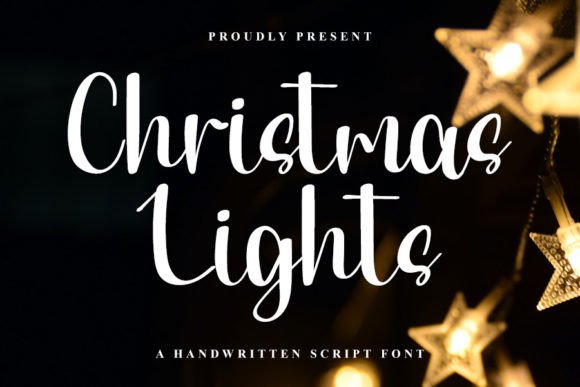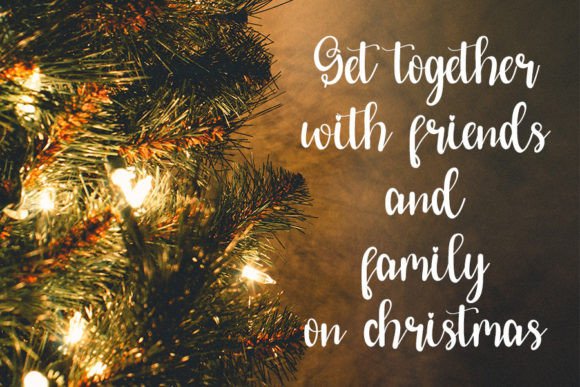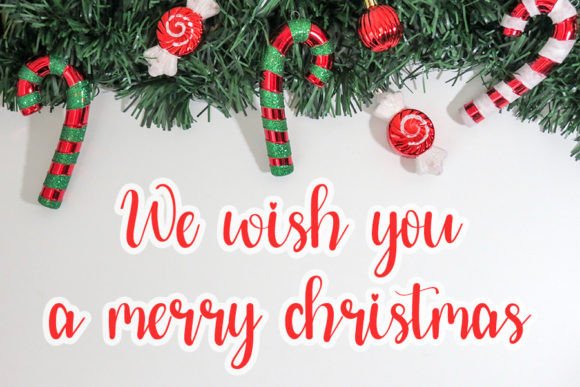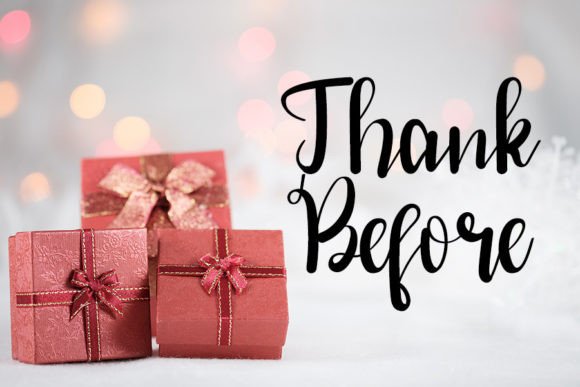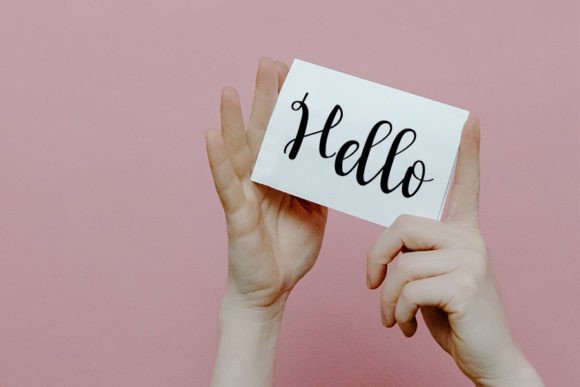
Christmas Lights Font
Celebrate the holiday season in style with the Christmas Lights Font download, a graceful and elegant handwritten script designed to capture the warmth and sparkle of Christmas. Inspired by timeless calligraphy and crafted with a contemporary flair, this font adds a festive and polished look to any project you create.
From cheerful cards and winter-themed invitations to seasonal branding and product packaging, Christmas Lights Font is the perfect way to bring a handcrafted holiday touch to your designs. Its flowing lines and balanced curves give it an approachable elegance, making it both legible and visually appealing.
Stylish, Balanced, and Beautiful
What sets Christmas Lights Font download apart is its classic influence paired with modern refinement. It’s neither overly ornate nor too casual—striking just the right balance for a wide range of uses. The letterforms are carefully varied, giving your text an organic, handwritten rhythm that looks beautiful whether used in large headlines or smaller captions.
Perfect for:
• Holiday cards & party invitations
• Christmas-themed social media graphics
• Personalized gift tags & packaging
• Winter wedding stationery
• Seasonal marketing materials
• Etsy shops, banners & ads
• Craft projects with Cricut or Silhouette
• Custom ornaments, mugs, and apparel
Its versatility ensures your holiday designs always shine with charm and professionalism.
A Must-Have for Your Holiday Toolkit
Whether you’re creating a heartwarming Christmas greeting card or designing seasonal branding for a client, Christmas Lights Font download offers a magical handwritten aesthetic that instantly elevates your work. The stylish curves and calligraphic flow give each character a handcrafted warmth that feels joyful and authentic.
The font’s natural elegance is especially well-suited for:
• Cozy gift shops
• Home decor signs
• Winter blog headers
• Holiday promotions
• Seasonal branding for local businesses
Add a touch of sparkle and sophistication to your holiday-themed creations with this beautiful typeface.